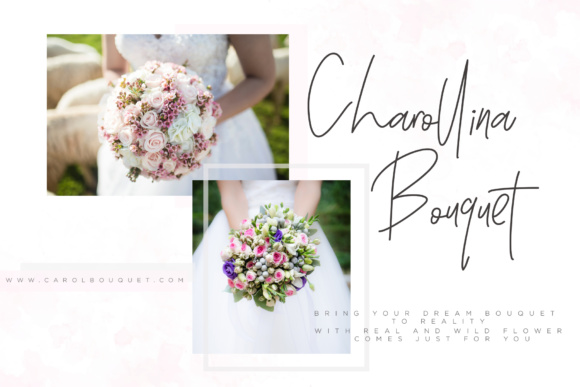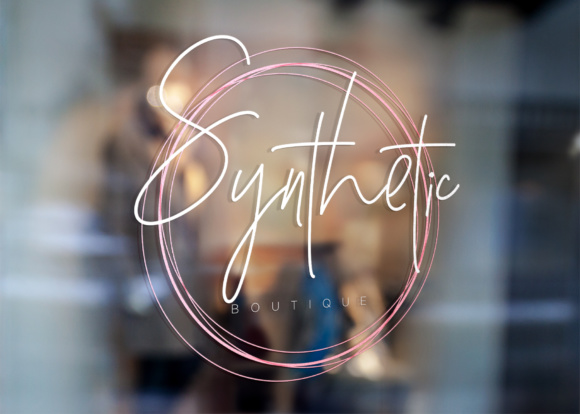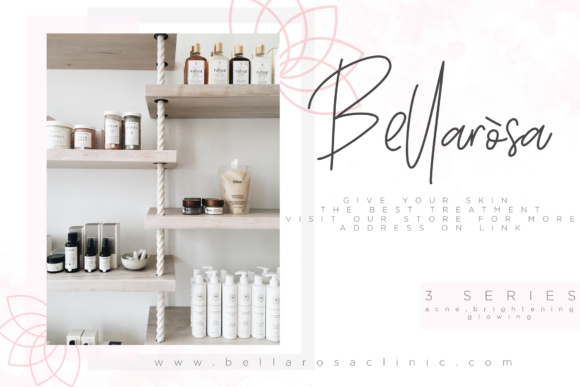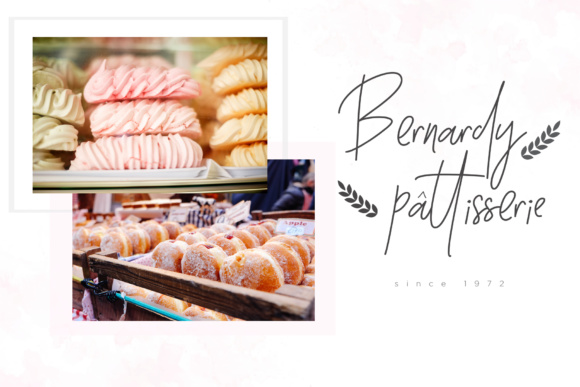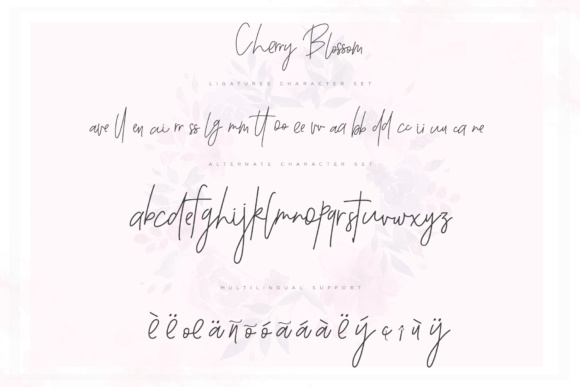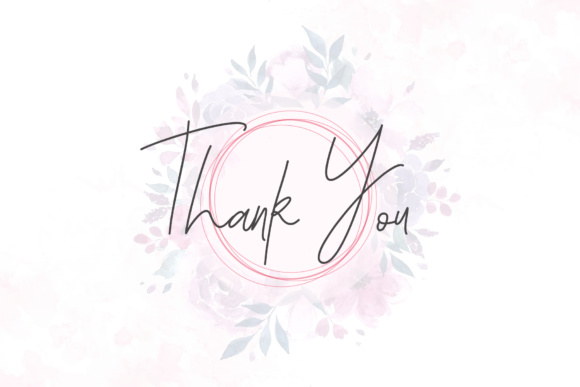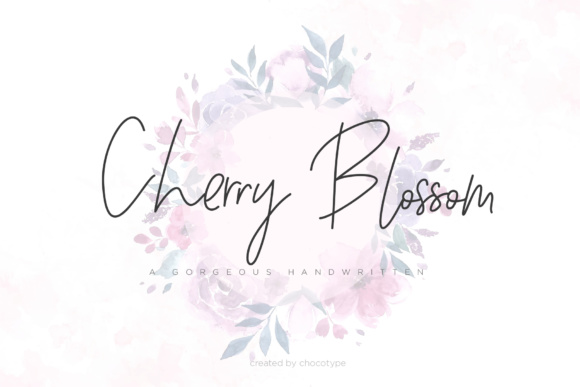
The Beauty of Cherry Blossom Font: Elevate Your Designs with Elegance
The Cherry Blossom Script is a stunning, decorative font that has captured the hearts of designers and crafters alike. Its elegant and feminine touch makes it a versatile font suitable for a wide range of applications. From wedding invitations and thank you cards to branding, social media, and more, this font is sure to add a touch of sophistication and charm to any design.
What Makes Cherry Blossom Font So Special?
The Cherry Blossom Script font boasts a unique and beautiful design, characterized by its flowing curves and delicate lines. Its elegant appearance is reminiscent of the breathtaking beauty of cherry blossoms, making it a perfect fit for designs that require a touch of whimsy and romance. The font’s feminine touch is particularly well-suited for wedding-related designs, such as invitations, save-the-date cards, and thank you notes.
Perfect for Wedding and Floral Designs
Wedding designers and florists, rejoice! The Cherry Blossom Script font is an ideal choice for creating stunning wedding invitations, ceremony programs, and thank you cards. Its elegant design and delicate curves evoke a sense of romance and sophistication, setting the tone for a beautiful and memorable wedding celebration. Additionally, the font’s floral inspiration makes it a natural fit for florist shops, gardening businesses, and botanical designs.
Beyond Wedding Designs: Versatility in Branding and Social Media
While the Cherry Blossom Script font excels in wedding and floral designs, its versatility extends far beyond. The font’s completeness and high quality make it an excellent choice for branding, social media, and online content creation. Use it to add a touch of elegance to your Instagram posts, Facebook graphics, and blog headers. The font’s unique design will help your brand stand out and leave a lasting impression on your audience.
Why Designers and Crafters Love Cherry Blossom Font
Designers and crafters adore the Cherry Blossom Script font for its exceptional quality and versatility. Here are just a few reasons why:
• Elegant Design: The font’s beautiful, flowing curves and delicate lines create a stunning visual effect.
• Feminine Touch: The font’s feminine charm makes it perfect for designs that require a touch of whimsy and romance.
• Versatility: Use the font for wedding designs, branding, social media, and more.
• High Quality: The font is designed with completeness and quality in mind, ensuring a professional finish.
Tips for Using Cherry Blossom Font in Your Designs
To get the most out of the Cherry Blossom Script font, here are a few design tips to keep in mind:
• Pair with Neutral Colors: Balance the font’s elegance with neutral colors like white, cream, or pale gray.
• Add Floral Elements: Combine the font with floral illustrations or images to create a cohesive look.
• Experiment with Sizes: Play with font sizes to create visual interest and hierarchy in your design.
• Keep it Simple: Avoid over-accessorizing your design; let the font’s elegance shine through.
The Cherry Blossom Script font is a beautiful, elegant, and versatile design that can elevate any project. Whether you’re a designer, crafter, or business owner, this font is sure to inspire and delight. With its feminine touch, flowing curves, and delicate lines, it’s the perfect choice for wedding designs, branding, social media, and more. So why wait? Download the Cherry Blossom Script font today and add a touch of sophistication and charm to your designs!